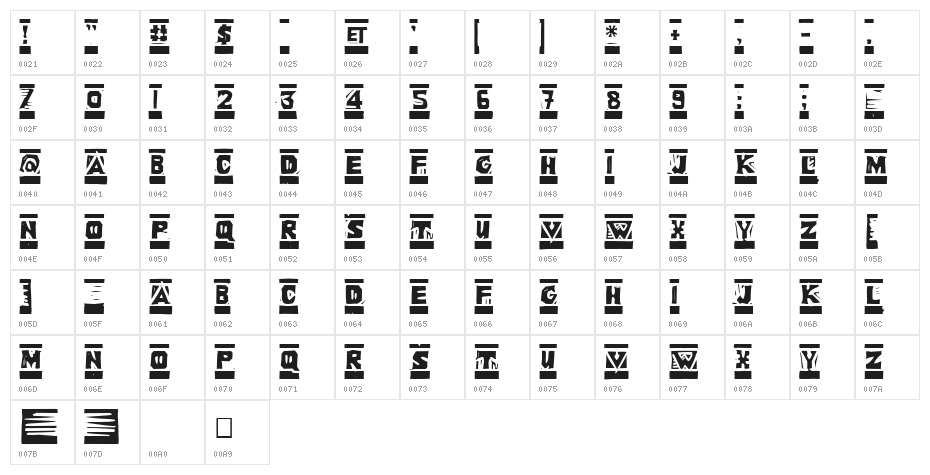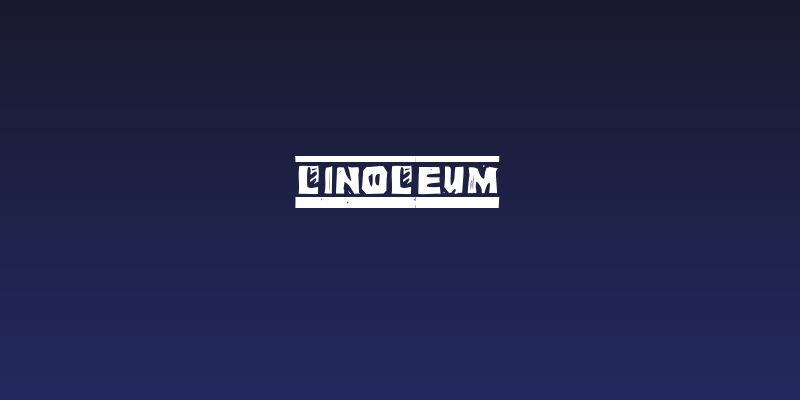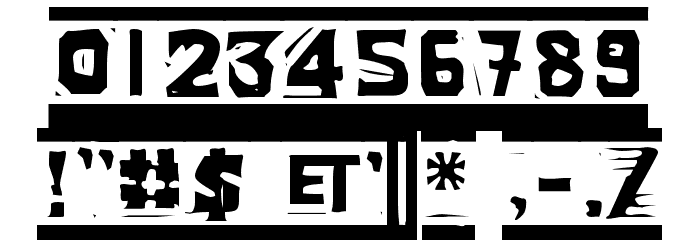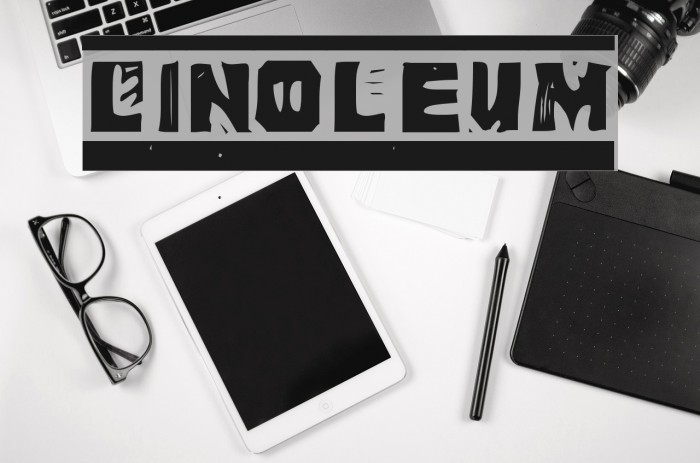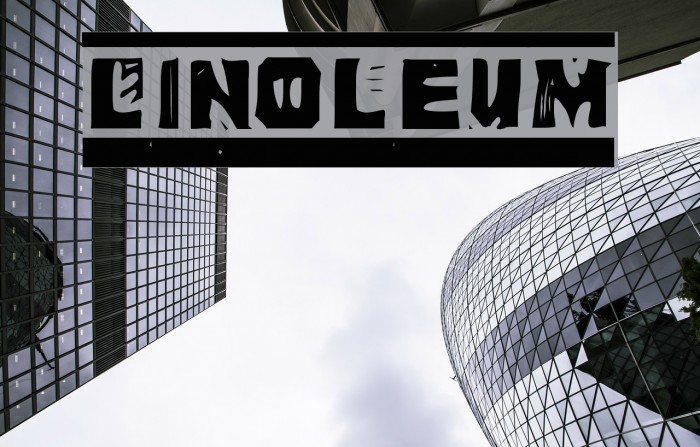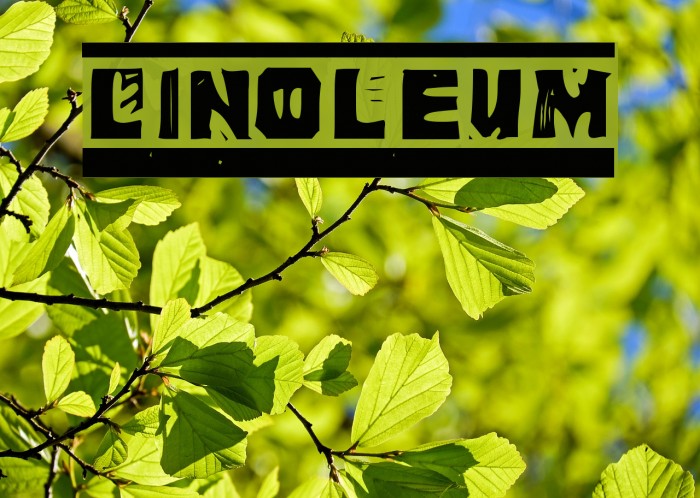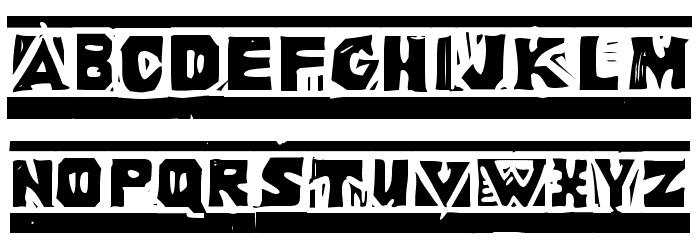
Linoleum Font
Linoleum Description
This font features a bold, dynamic style with a distinctly rough and textured appearance, reminiscent of linocut prints. The characters are blocky and angular, with irregular edges that give them a handcrafted, artistic feel. The uppercase letters are particularly striking, with each character exhibiting unique cuts and shapes that add to the overall visual interest. The numbers and special characters maintain this rugged aesthetic, ensuring consistency across all glyphs. This font's high contrast and bold presence make it ideal for attention-grabbing designs.
| Overall Style | Artistic, Handcrafted |
| Proposed Projects | Ideal for poster designs, album covers, branding projects, and any creative work that requires a bold, artistic touch. |